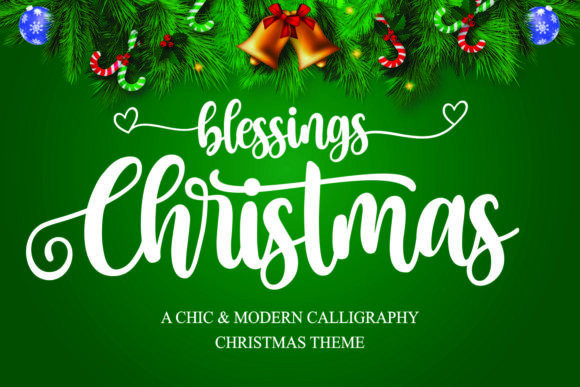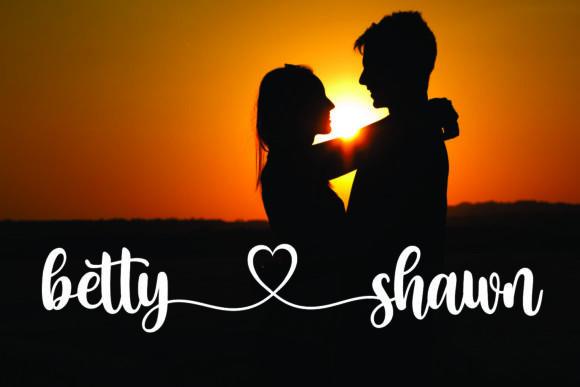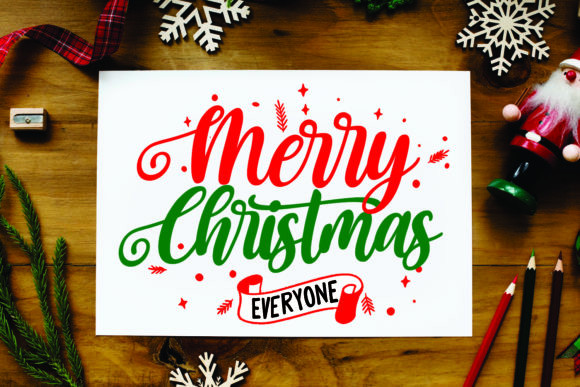
Christmas Blessings Font
Christmas Blessings FontChristmas Blessings is a chic and modern calligraphy font. It is ideal for crafting, branding, greeting cards and for adding a joyful touch to your designs!
This font is PUA encoded which means you can access all of the great glyphs and swashes with ease! It also features a wealth of special features including alternate glyphs and ligatures.